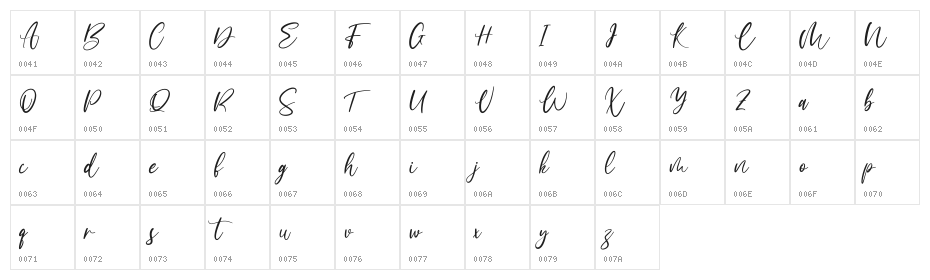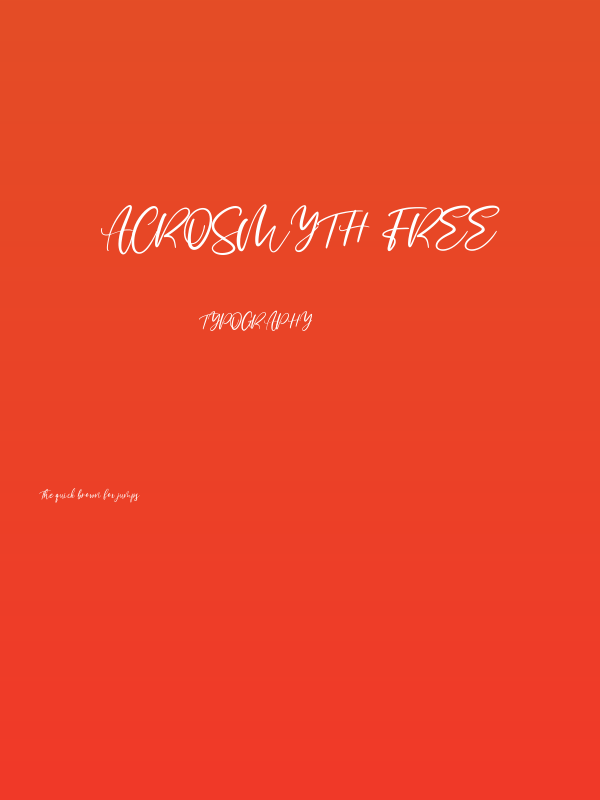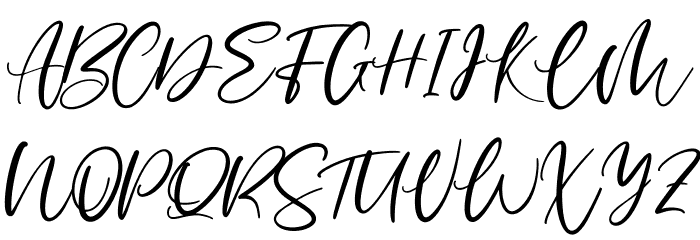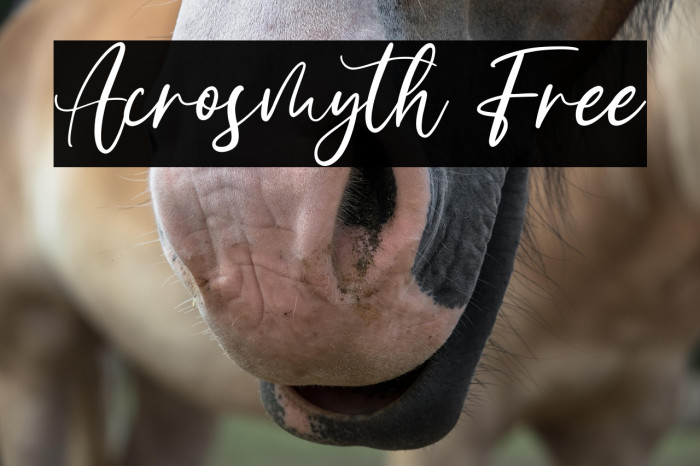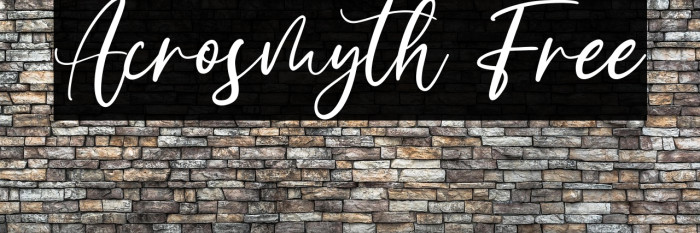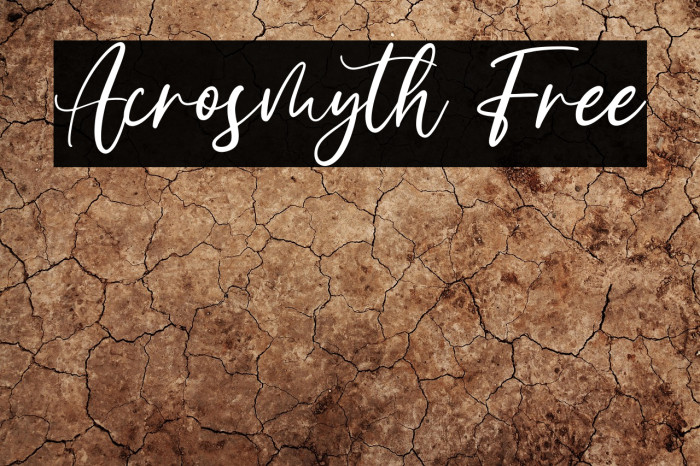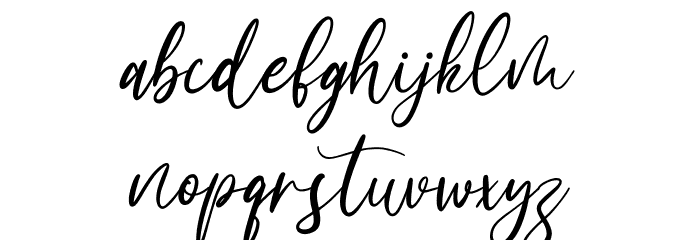
Acrosmyth Free Font
Acrosmyth Free Description
This font features an elegant and flowing script style, characterized by its smooth, cursive strokes and graceful curves. The letters are interconnected, creating a seamless and fluid appearance that mimics natural handwriting. The uppercase letters are bold and prominent, while the lowercase letters maintain a consistent flow, enhancing readability. This font exudes a sense of sophistication and creativity, making it ideal for projects that require a personal touch. The overall design is both artistic and functional, suitable for a variety of applications.